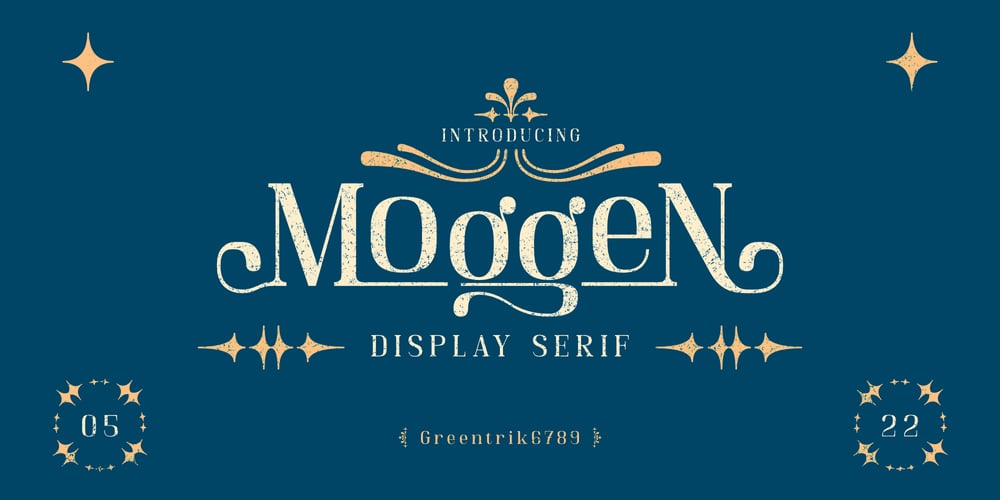
Moggen Font Family was designed by Tri Kuncoro and published by Greentrik6789. Moggen contains 2 styles and family package options. Moggen is a fonts of serif displays with high and beautiful contrast flows with a variety of alternative choices of characters that you can use according to your needs, also equipped with Swash Ornaments for vintage and luxurious views on your design.This font is also equipped with a variety of character ligature that you can use for logos, labels, posters, advertisements, wedding invitations, cover, and various types of display designs. Opentype Features : Stylistic Alternates Stylistic Set 01-08 Standard Ligatures Discretionary Ligatures Fractions Ordinals Superscript Subscript Hope you enjoy this font, and don’t hesitate to leave a comment or message if you have problems or questions. Thank you and have a nice day ๐ ๐